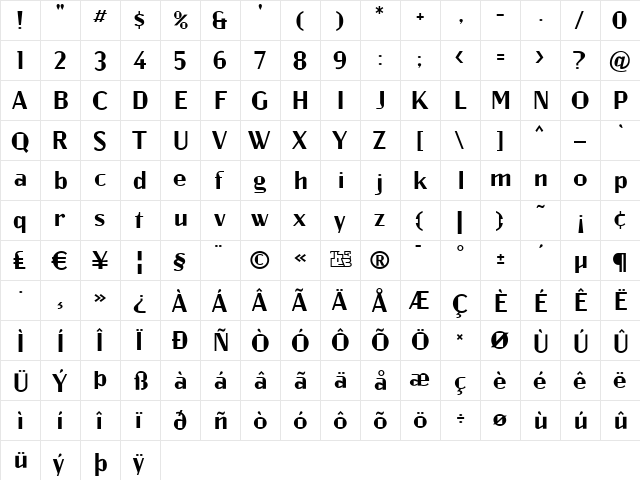
Jagz Regular
| Designer | Karen Clemens & Apostrophe |
Design Context for Jagz Typeface
Jagz takes a measured approach to typography — its balanced proportions and neutral character make it a reliable workhorse for both digital and print work.